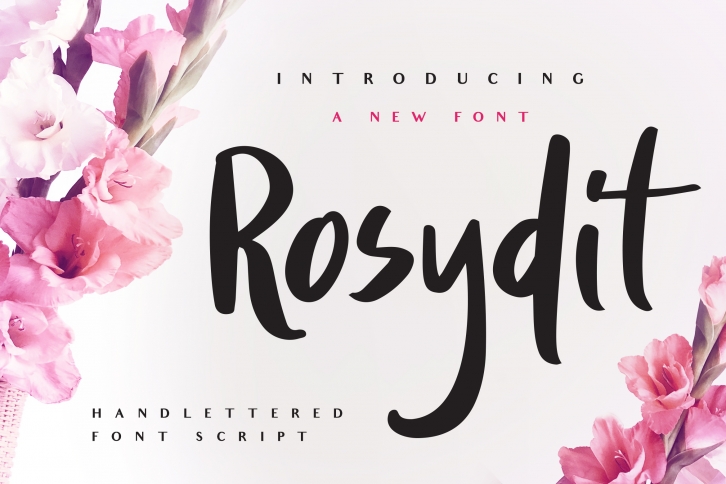
Rosydit is a beautiful font that was designed by IanMikraz. It's a great choice for designers and creatives who need such a font. It was released on August 28, 2019 and the file size is 11.73 MB. Rosydit may give a more youthful, expressive and casual look to your project. It is a very beautiful, refined, elegant, and high-quality font.